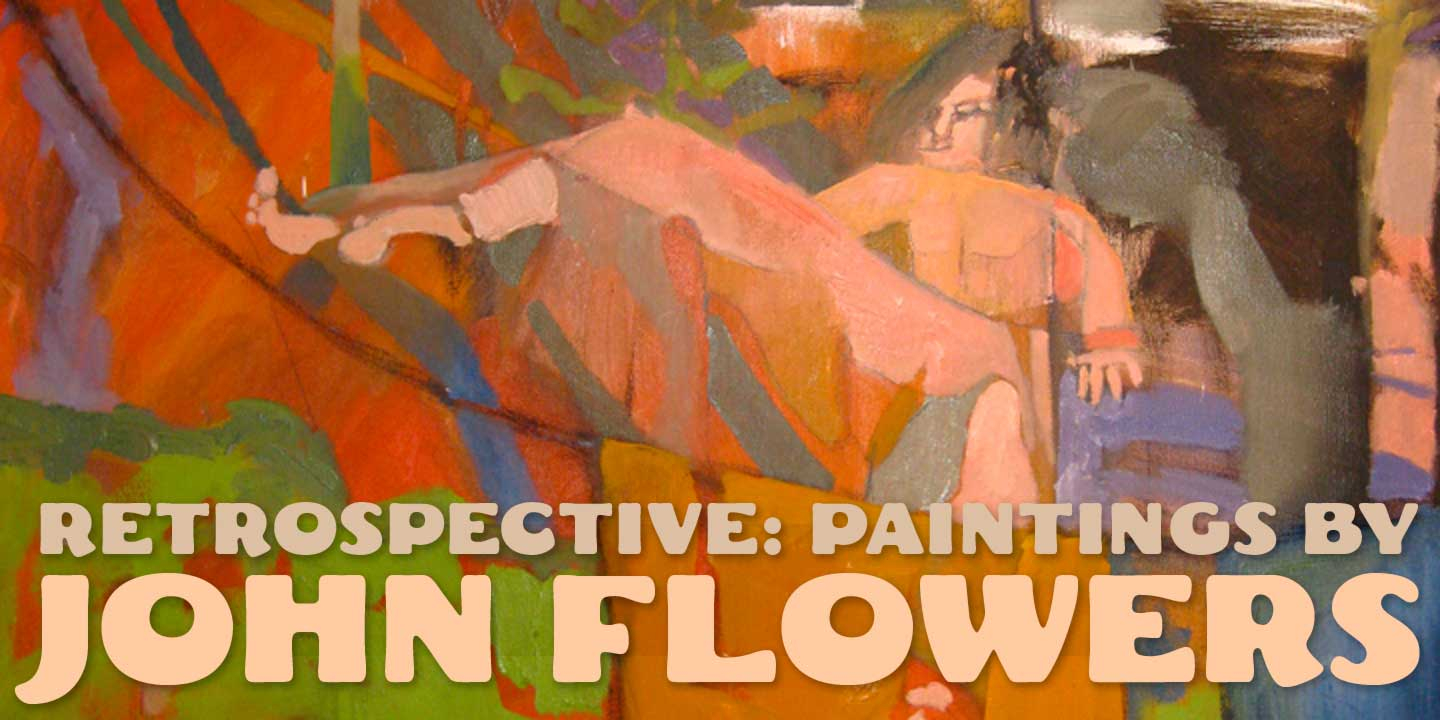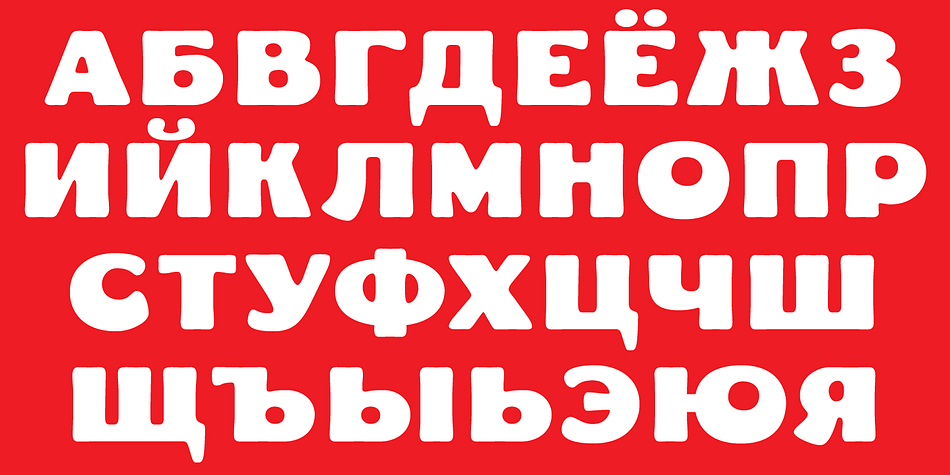
Fat Freddie CT is a display font published by CastleType.
Fat FreddieTM is a bold, playful typeface. Original typeface name and designer unknown. This font supports all European languages that use the Latin alphabet, as well as those that use Cyrillic.